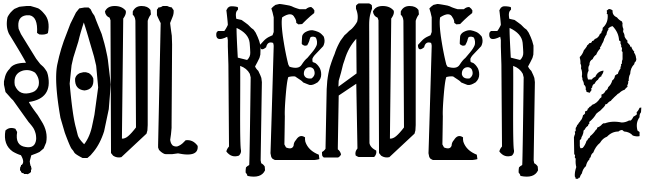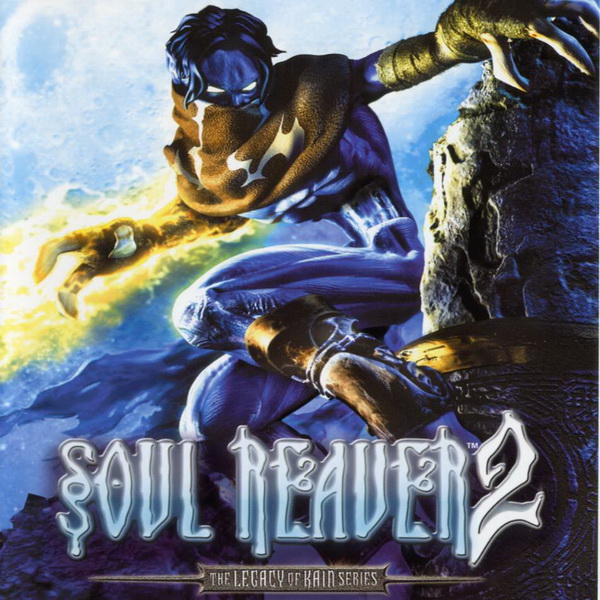
Soul Reaver 2 Font
ActionSoul Reaver 2 is a 2001 action-adventure video game developed by Crystal Dynamics and published by Eidos Interactive. In this sequel to Legacy of Kain: Soul Reaver, Raziel, the vampire-turned-wraith protagonist of the previous game, continues his quest for redemption.
The Soul Reaver 2 game's title on the box art is written in a font by the same name, Soul Reaver created by Dark Angel Genesis. Only capital letters and numerals are included in the font.